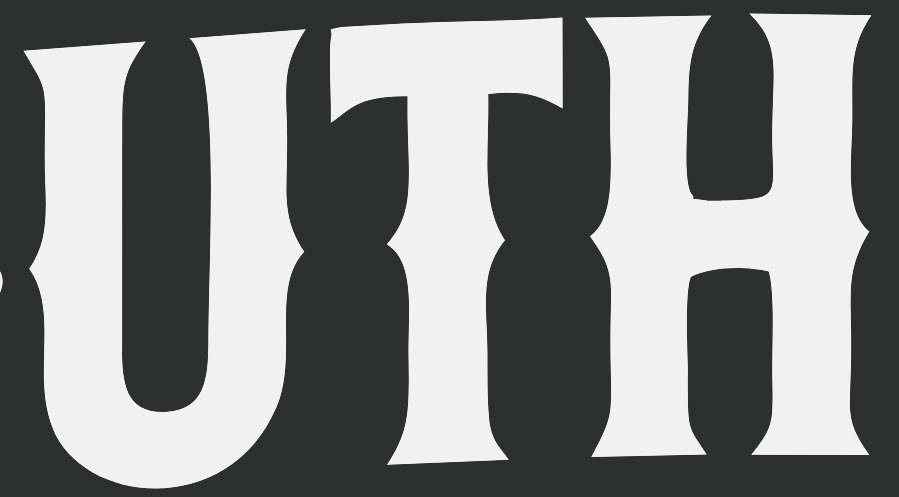
Odd that I can't seem to get this font identified. I know I have seen it before but I can't find it and FMF is not able to find it either. Any help would be appreciated.
The closer I can find is Vintique Vintage (lowercase letters: 'uth')
...unless you want to manually add the spurs to BonnevilleTypeface  (lowercase letters also: 'uth')